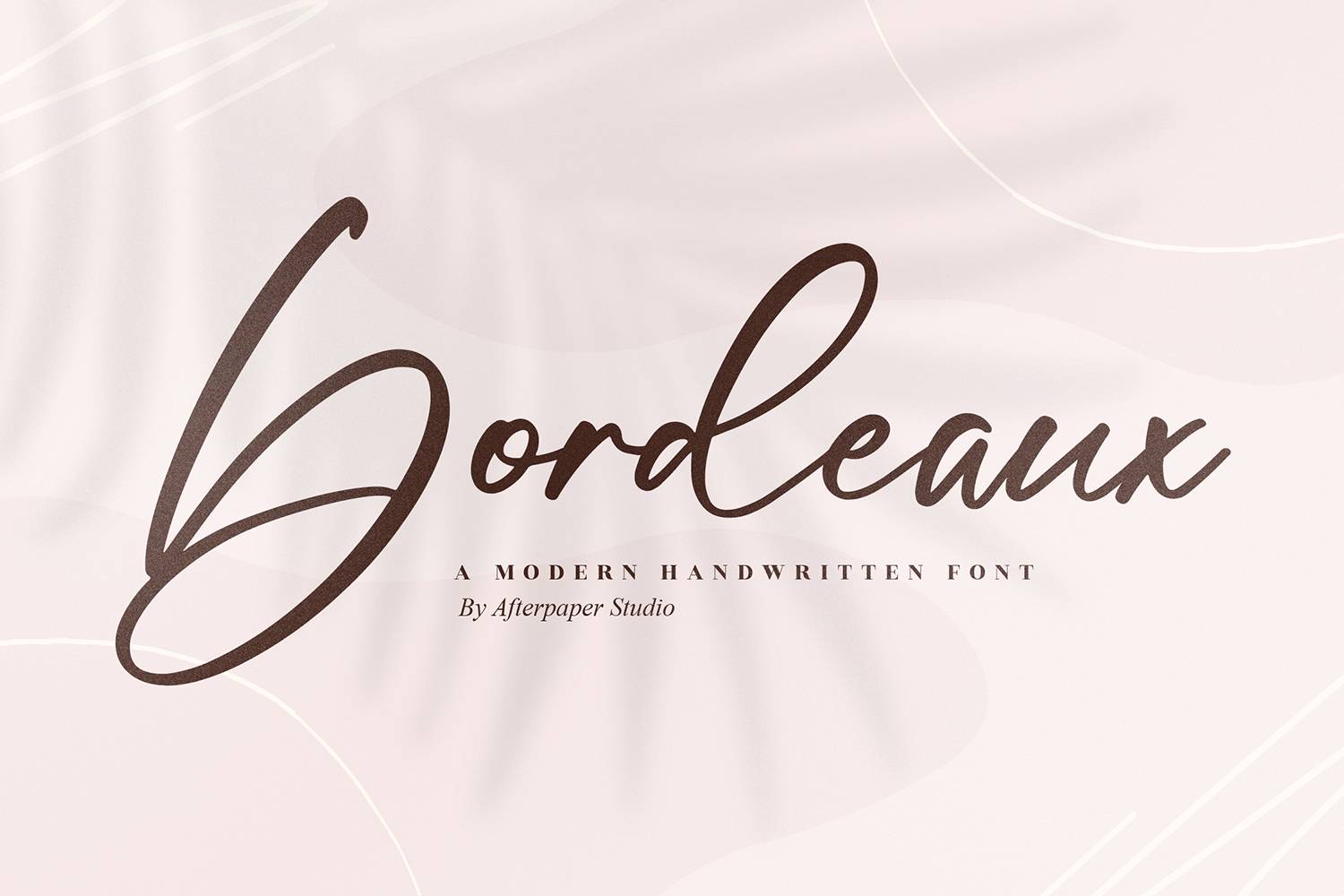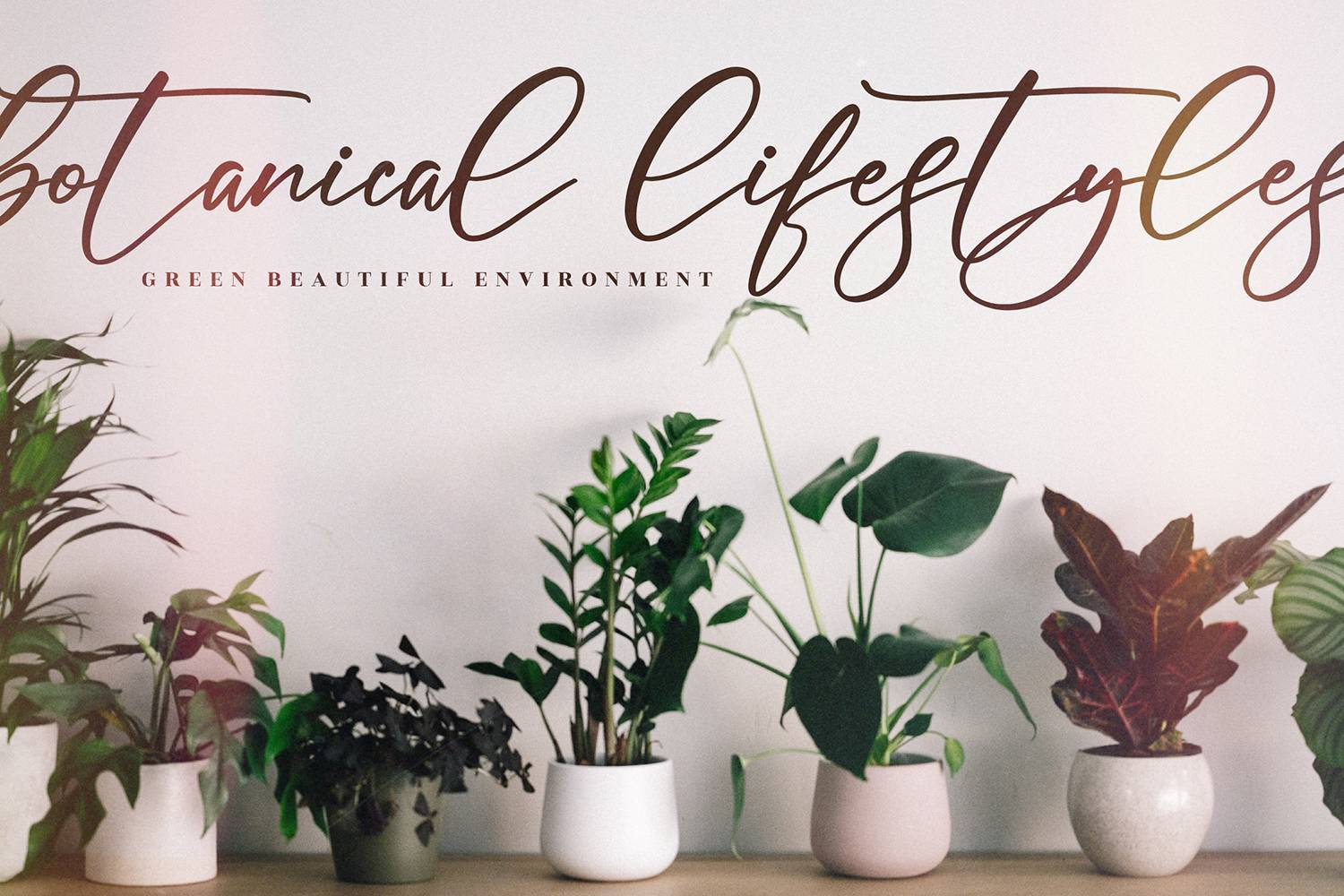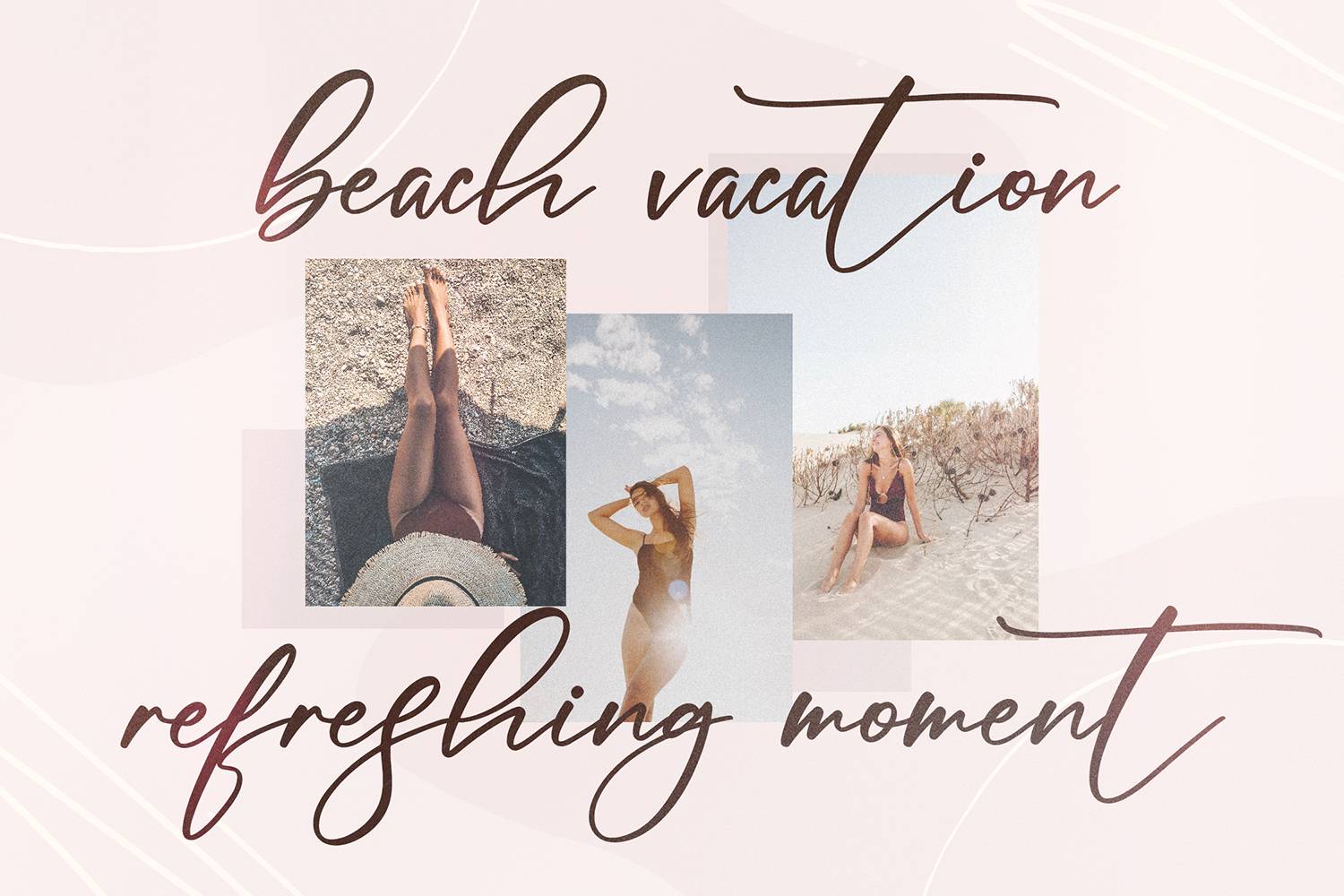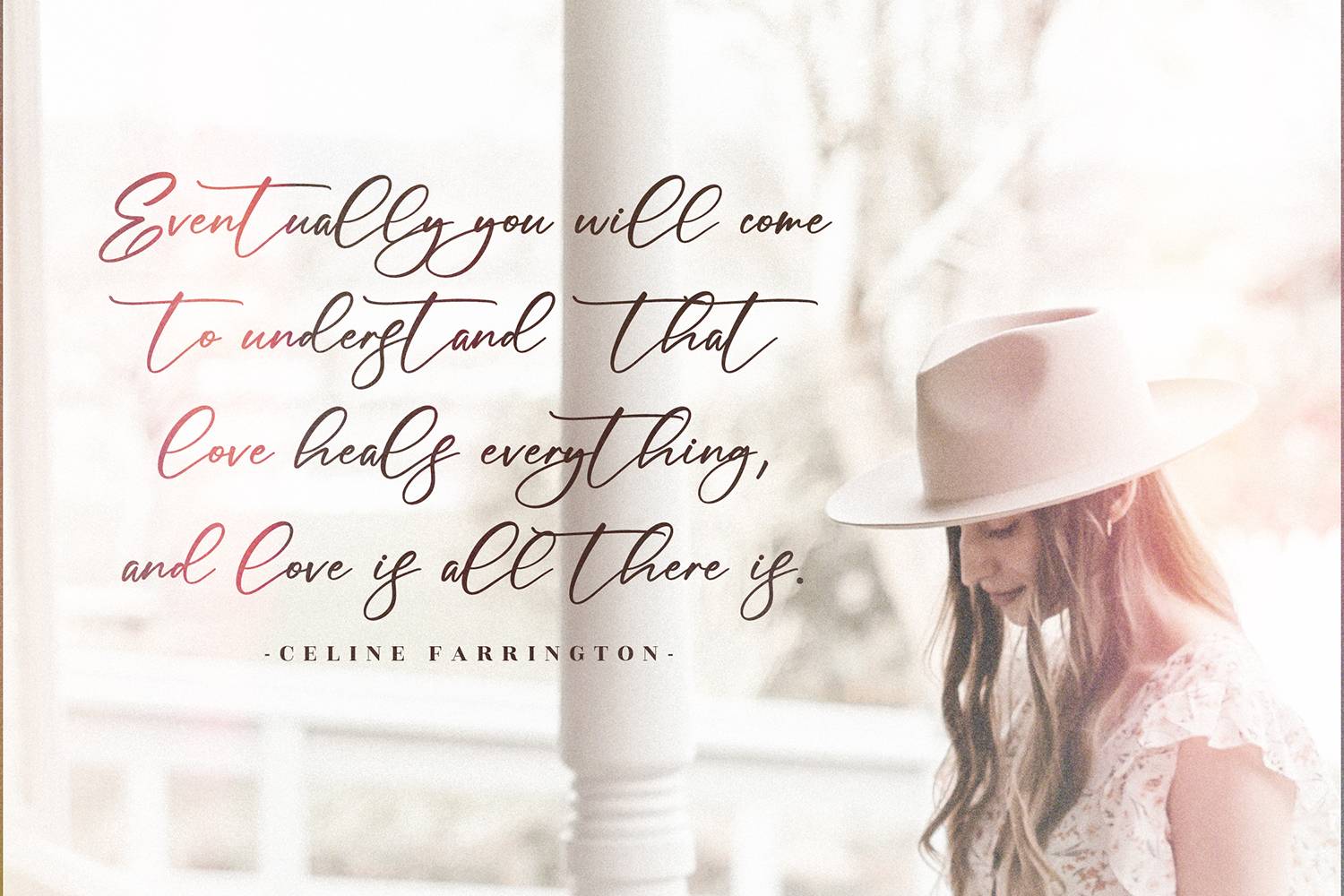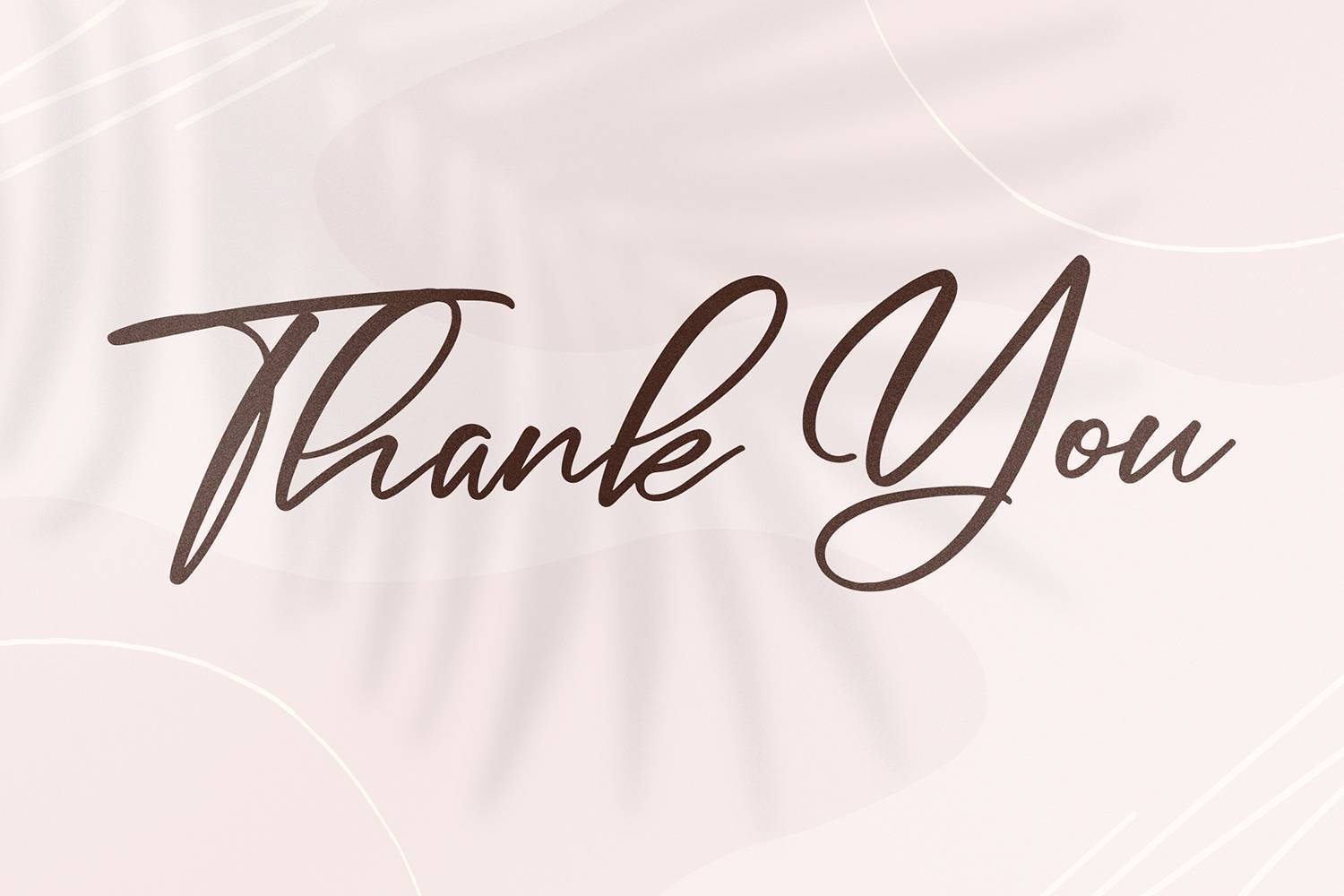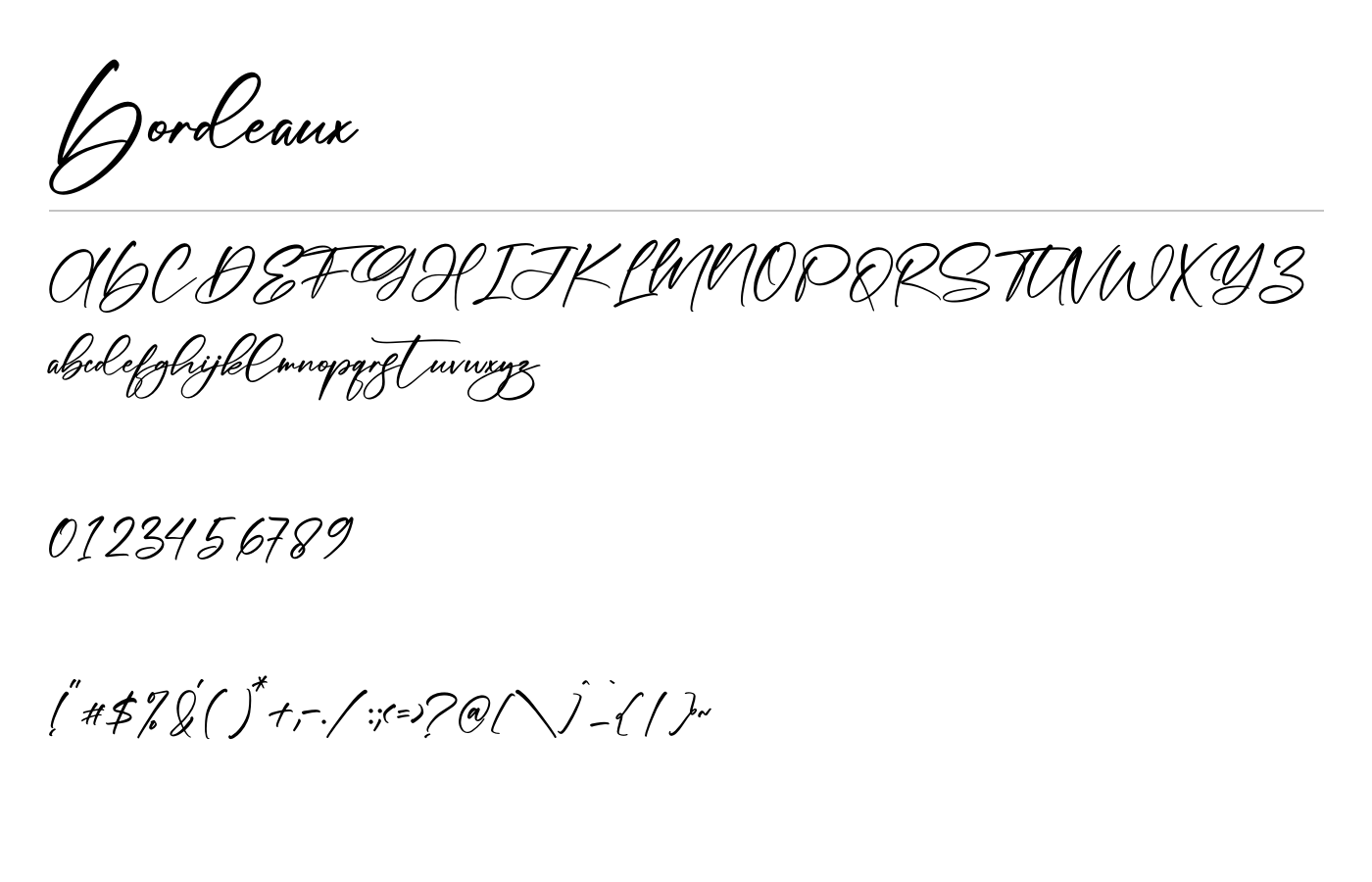
Bordeaux is an elegant and modern script font with a delicate, handwritten style that combines flowing, slender strokes and a graceful, airy feel. Its high contrast and refined letterforms make it perfect for sophisticated branding, wedding invitations, and stylish editorial projects where a personal, artistic touch is desired. This font adds a sense of intimacy and beauty, lending a luxurious and contemporary vibe to any design.
Bordeaux Font
About Bordeaux Font